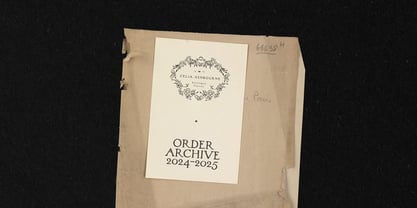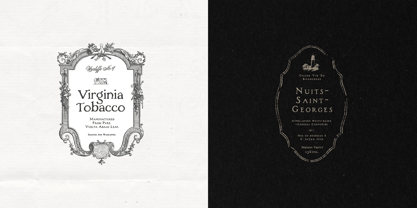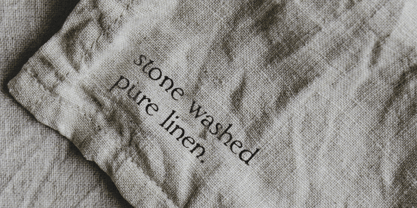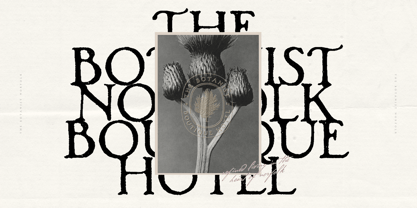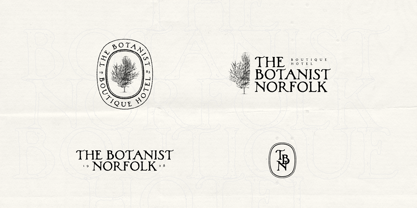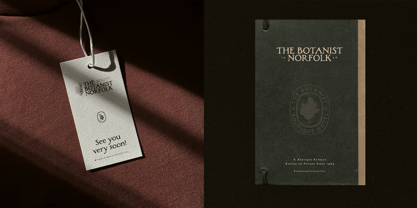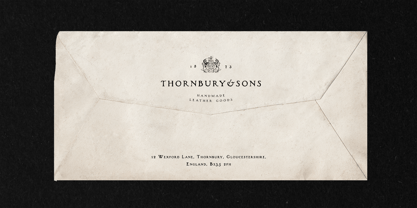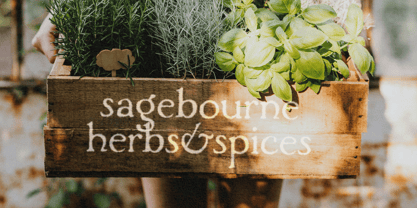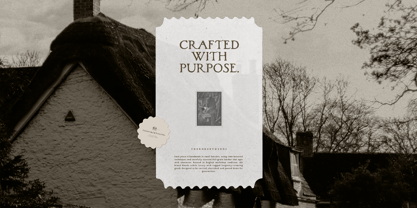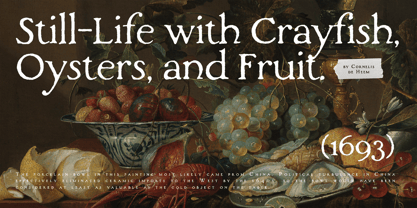
HV Sylvatheca
by Harmonais Visual
The HV Sylvatheca Font Family was designed by Max Duy T., Ivy Xuyen Phan and published by Harmonais Visual. HV Sylvatheca contains 1 styles. More about this family
Sylvatheca (a.k.a Woodlands) is a vintage, hand-painted serif that carries the gentle charm of organic imperfection. Rooted in old-world craftsmanship, its subtle irregularities and softly weathered strokes bring an authentic warmth to every composition. Perfect for rustic identities, heritage-inspired branding, artisanal packaging, and any project seeking a quiet blend of elegance and timeworn character.